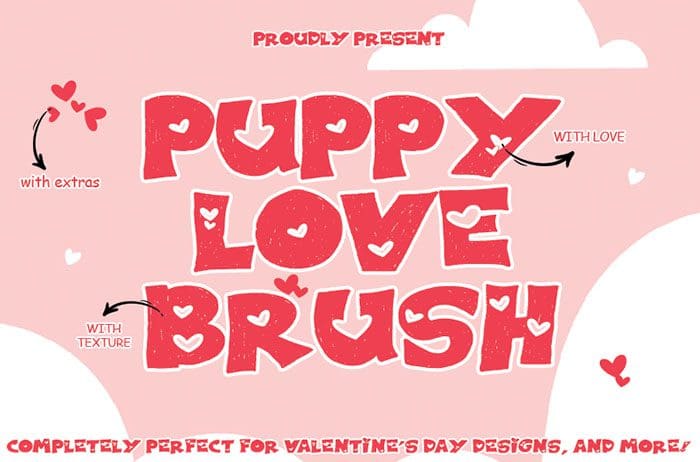
Puppy Love Brush Font
Puppy Love Brush font is inspired by the power of love and beautifully illustrates this in each letter. It radiates authenticity and romanticism and is perfect for taking any Valentine’s Day designs to the next level. Designed this font by Thomas Aradea. You can also search more free Brush Fonts. Thanks!